Choosing from summer brush fonts for bold seasonal designs starts with the job your typography must do. Consider the words, their final size, and the mood of the project. The options below are organized to help you compare useful directions before testing candidates in your own layout.
How to evaluate the options
Set the real headline, name, or label in each candidate. Check legibility at the final size, compare the capitals and repeated letters, and leave enough room for decorative details. Use a quieter companion font for long descriptions and other supporting text.
Font picks
Smoothie Delights Font for logos
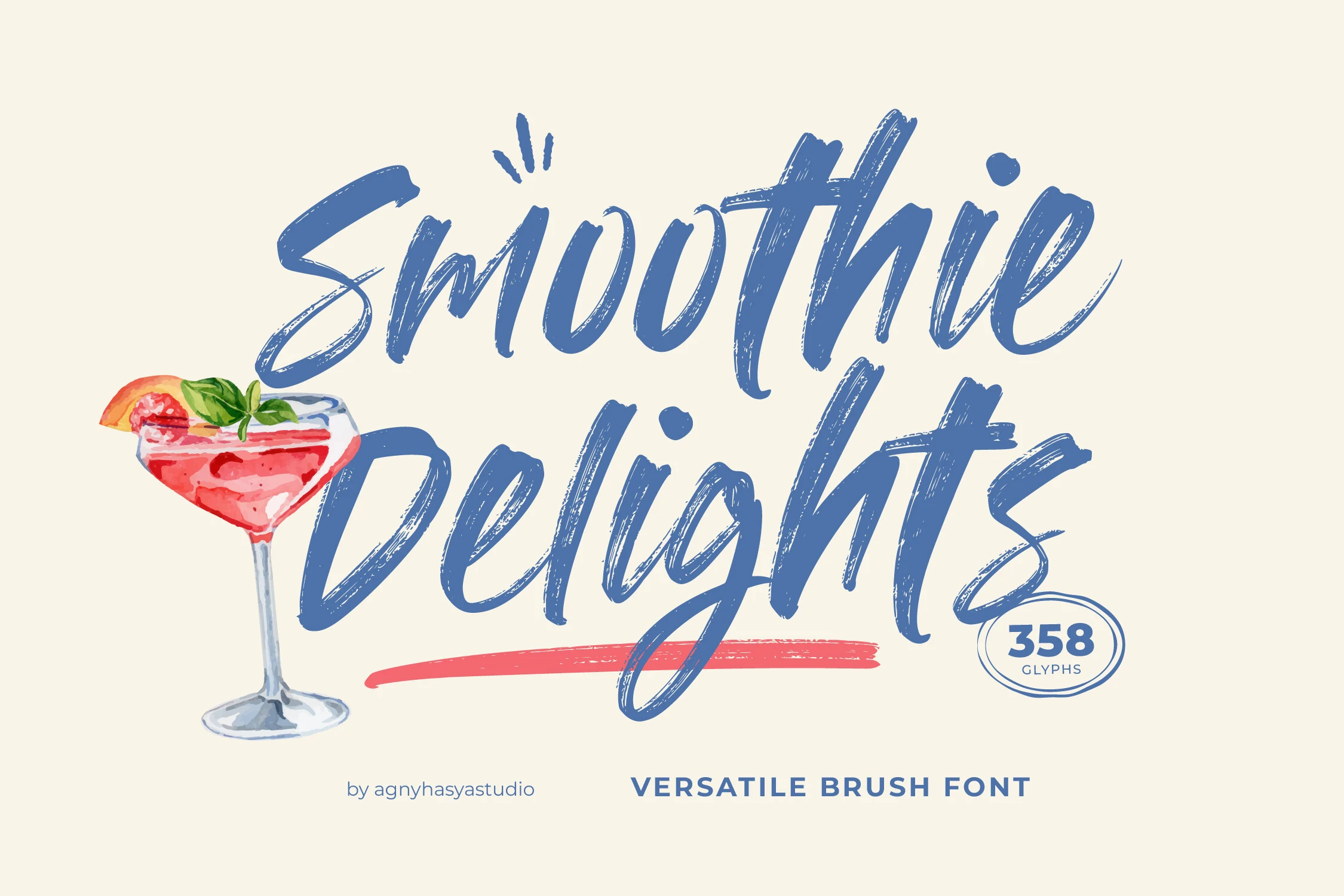
Smoothie Delights Font is worth testing for logos, packaging, and product labels. Look for brush-like movement and flowing script forms when comparing it with other options. Check how the texture holds up against the background.
Cruel Summer Font for quotes
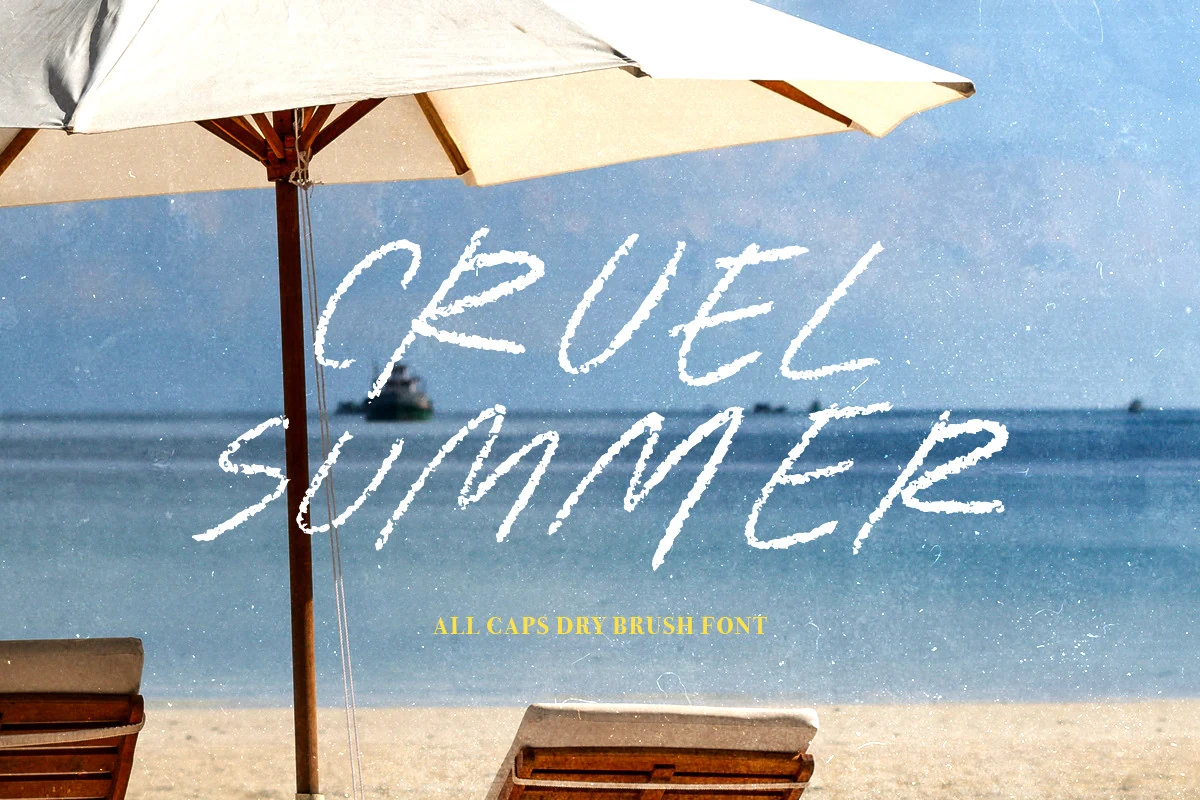
For quotes, restaurant menus, and posters, consider Cruel Summer Font. Its design draws on brush-like movement. Check how the texture holds up against the background.
One Piece Font for logos
One Piece Font can anchor logos, display text, and social media graphics. The main visual cues are brush-like movement and flowing script forms. Check how the texture holds up against the background.
Soul Seashell Font for logos
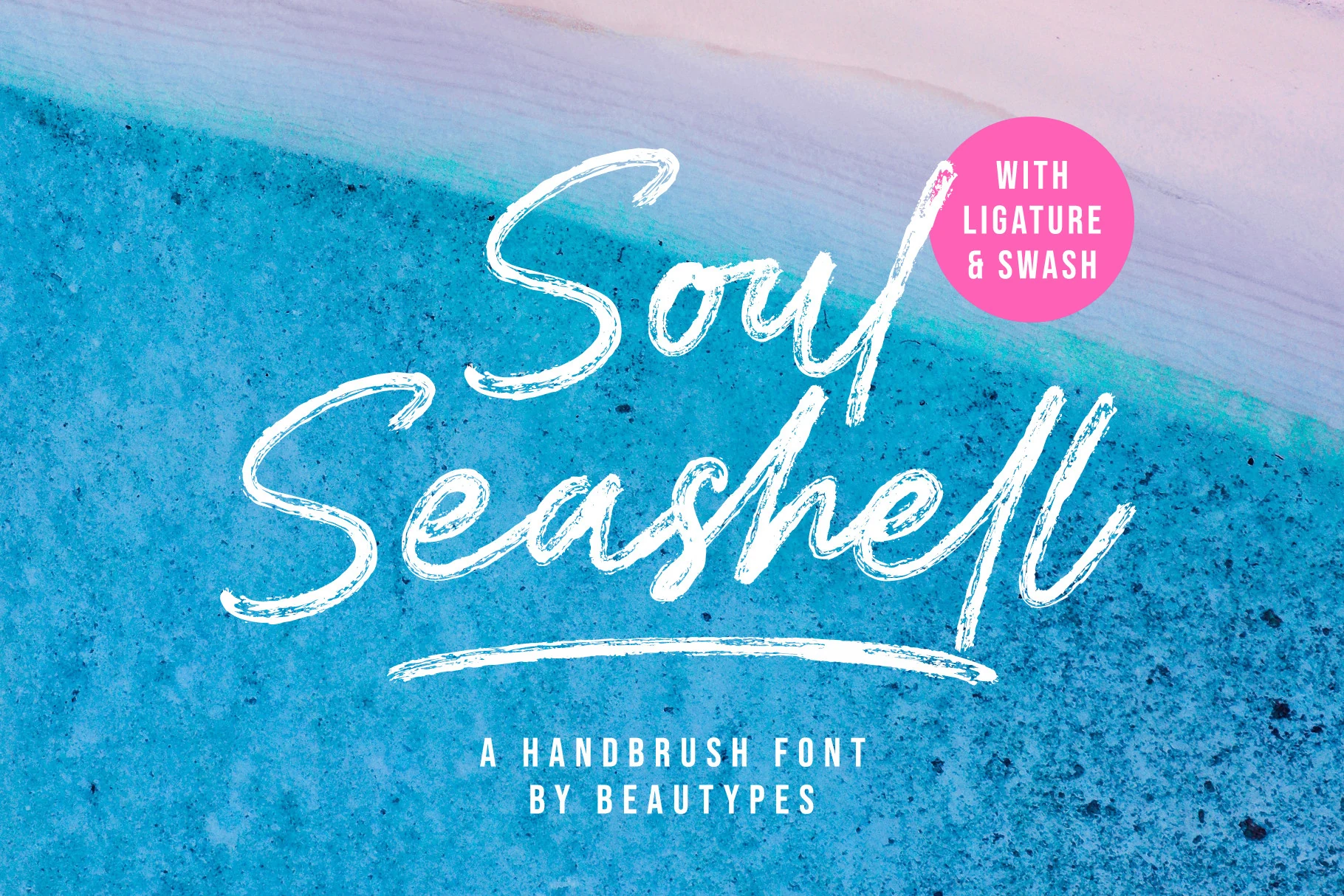
Soul Seashell Font is worth testing for logos, packaging, and product labels. Look for brush-like movement and decorative swashes when comparing it with other options. Check how the texture holds up against the background.
Candal Locked Font for branding
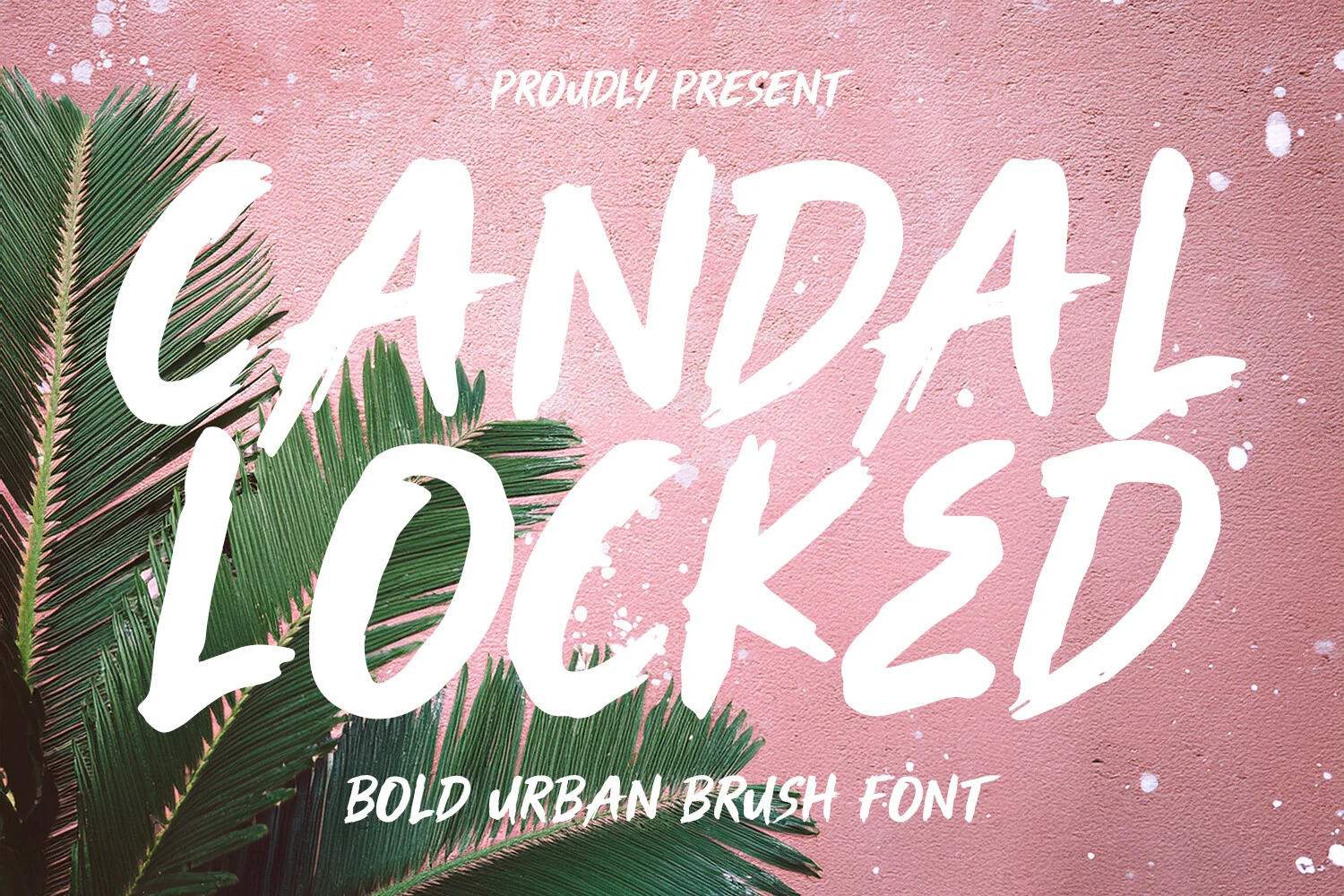
For branding, social media graphics, and posters, consider Candal Locked Font. Its design draws on brush-like movement and a handwritten character. Check how the texture holds up against the background.
Hamilyn Font for logos
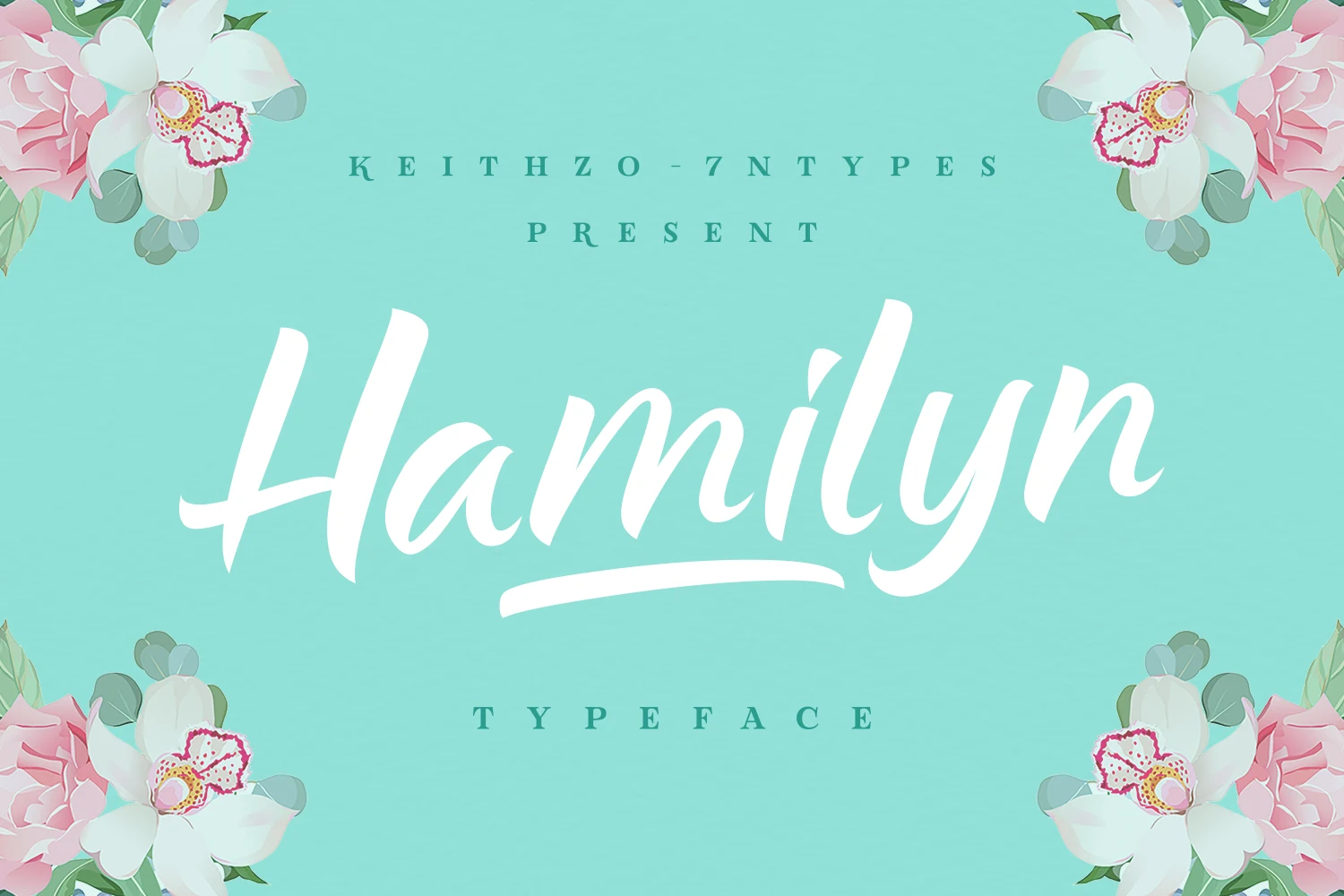
Hamilyn Font can anchor logos, invitations, and beauty branding. The main visual cues are brush-like movement and rounded letter shapes. Check how the texture holds up against the background.
Summer Brush Font for posters
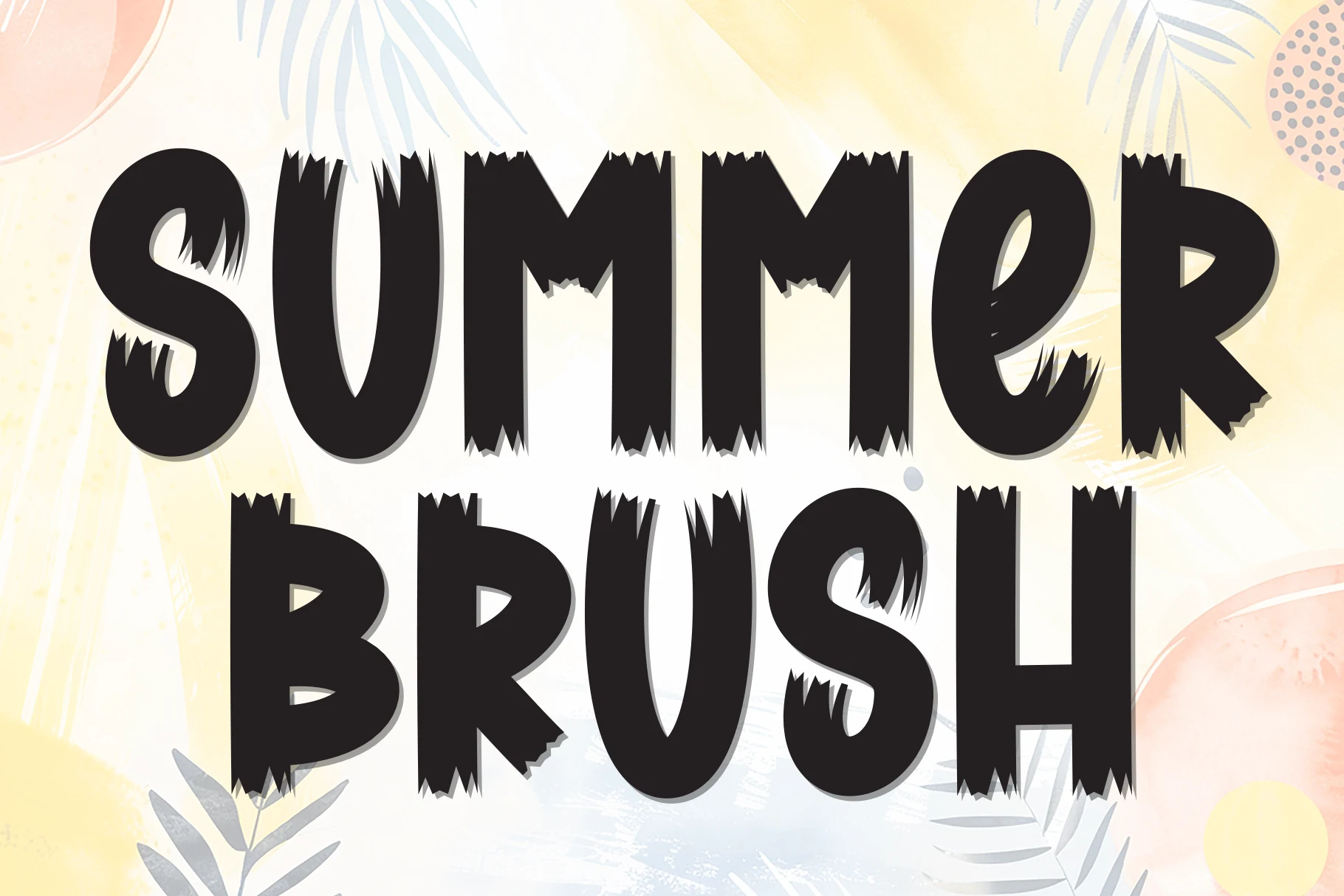
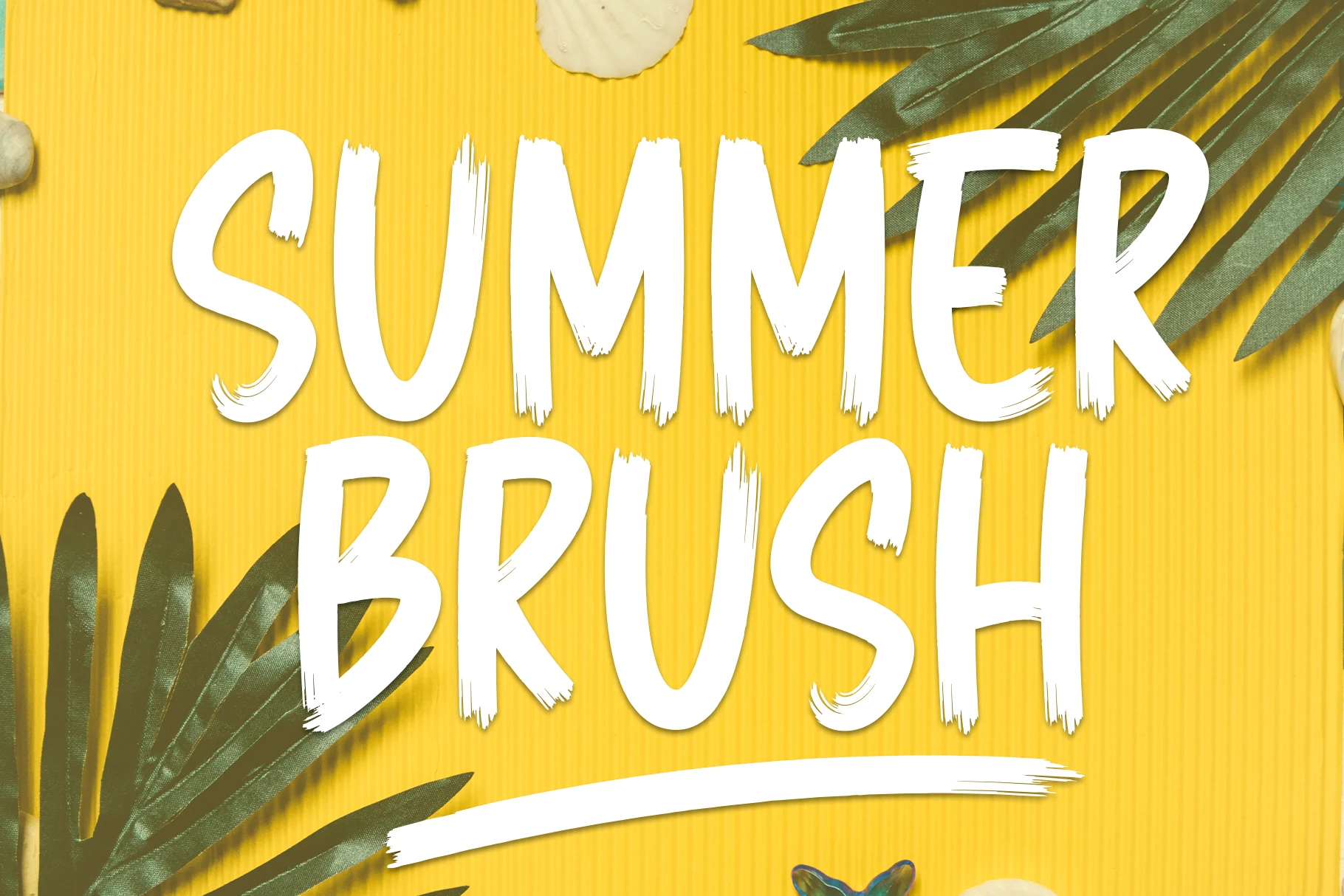
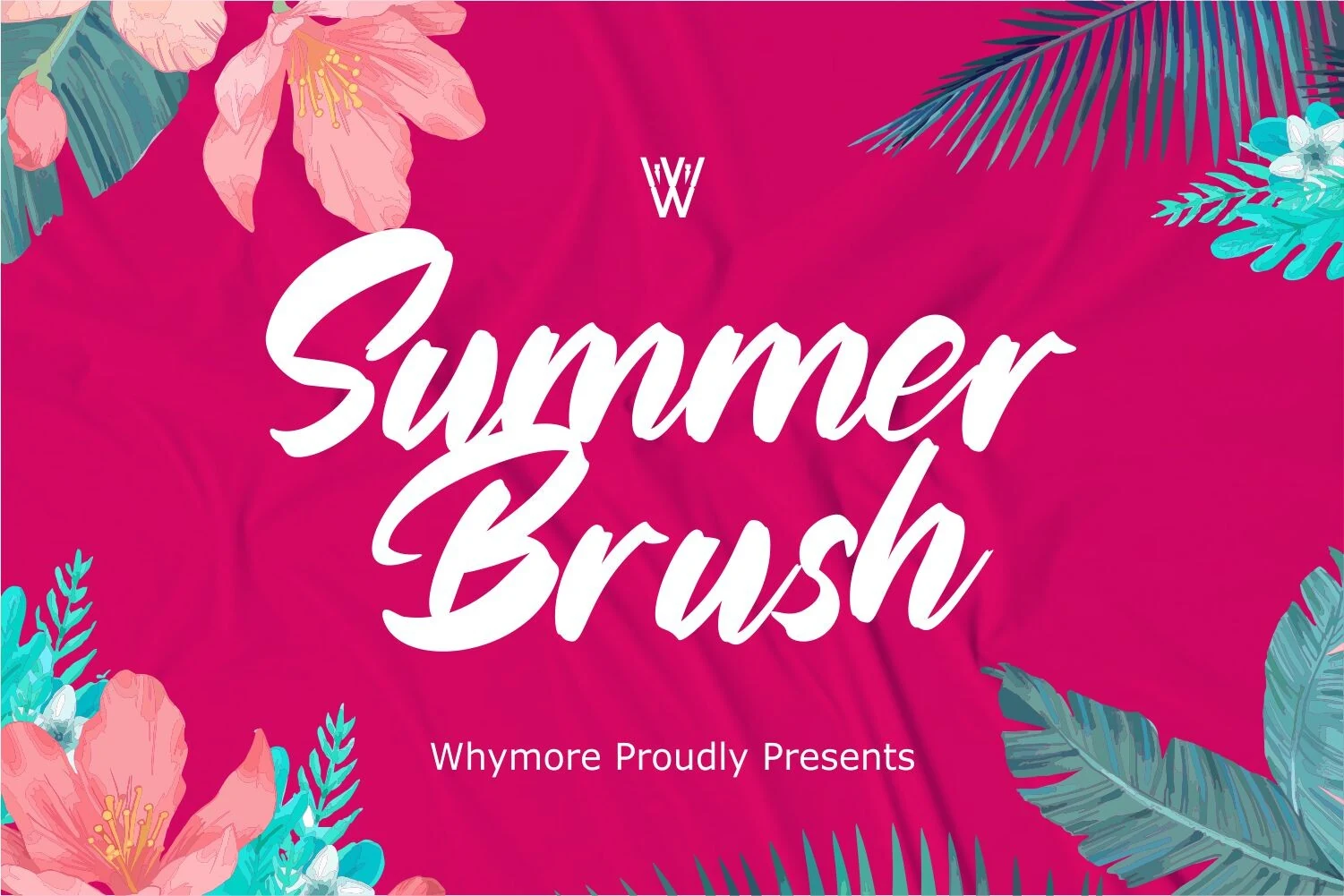
Summer Brush Font is worth testing for posters, social media graphics, and headlines. Look for brush-like movement and rounded letter shapes when comparing it with other options. Check how the texture holds up against the background.
Summer Brush Font for logos
For logos, invitations, and wedding designs, consider Summer Brush Font. Its design draws on brush-like movement and serif details. Check how the texture holds up against the background.
Summer Brush Font for signage
Summer Brush Font can anchor signage, logos, and branding. The main visual cues are brush-like movement and rounded letter shapes. Check how the texture holds up against the background.
Summer Island Font for stickers
Summer Island Font is worth testing for stickers, posters, and social media graphics. Look for brush-like movement and rounded letter shapes when comparing it with other options. Check how the texture holds up against the background.
Sparkle Font for posters
For posters, headlines, and display text, consider Sparkle Font. Its design draws on brush-like movement and flowing script forms. Check how the texture holds up against the background.
Final checks before using a font